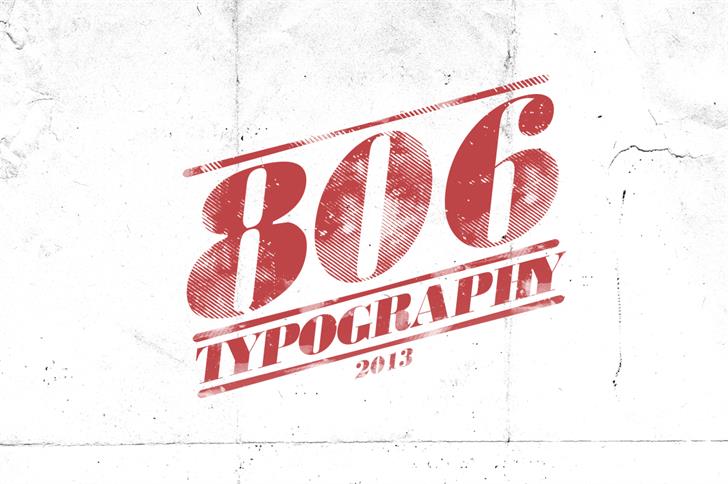
Free 806 Typography Font
Download and enjoy this free 806 typography font. Cool typeface to showcase your designs in a modern way. Font Space has created this amazing and beautiful typeface. Easily amaze your audience with this cool font and make your graphic designs pop up from the crowd.